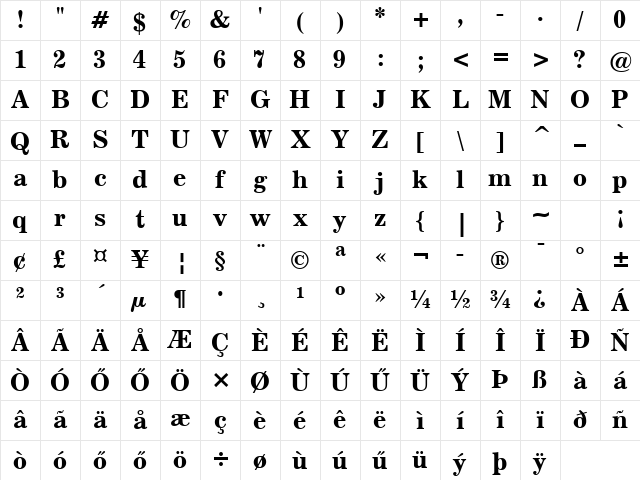
Hu_News 702 BT Bold Regular
Design Context for Hu_News 702 BT Bold
Hu_News 702 BT Bold is a composed and adaptable typeface that performs quietly and consistently across a wide range of design contexts. Its bold stroke weight gives it real presence on the page.